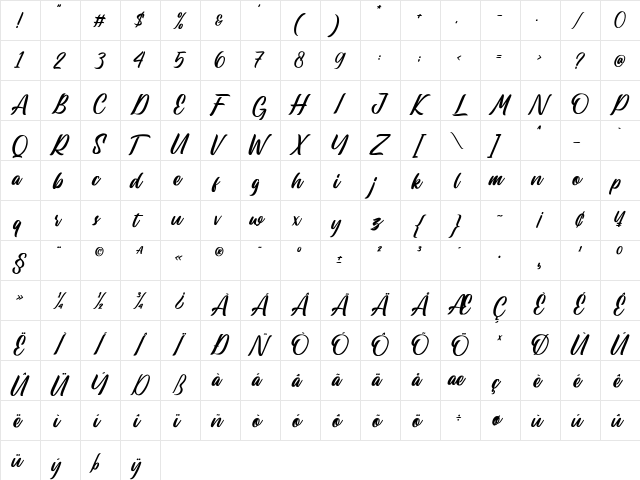
Lastwinter Regular
| Foundry | Garisman Studio |
| Designer | Risman Ginarwan |
Design Context for Lastwinter Typeface
Lastwinter is a composed and adaptable typeface that performs quietly and consistently across a wide range of design contexts.